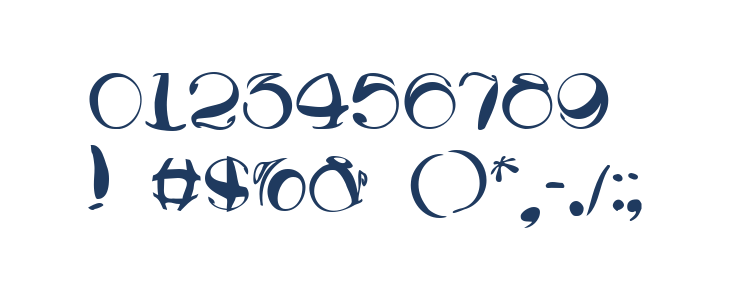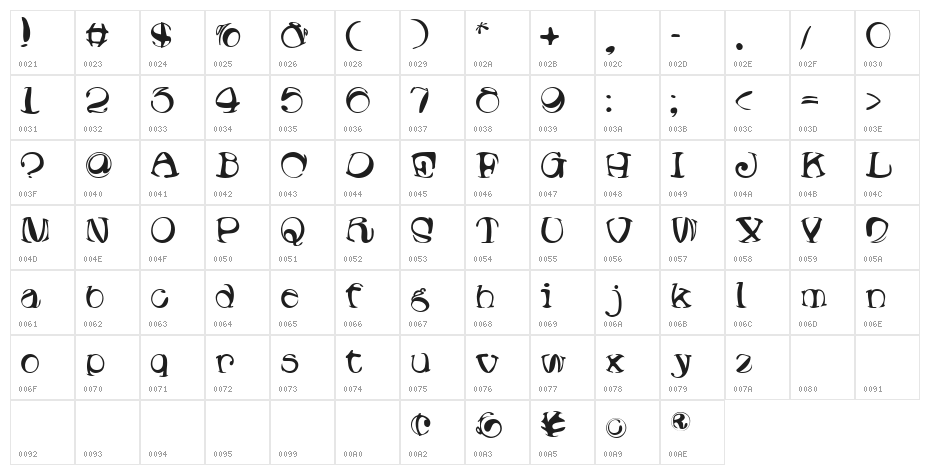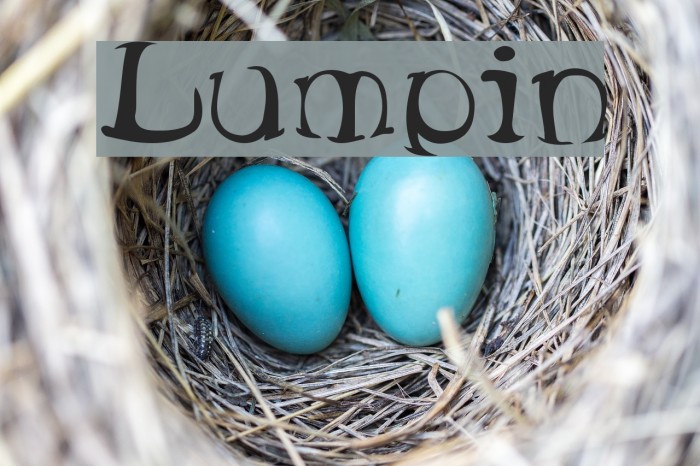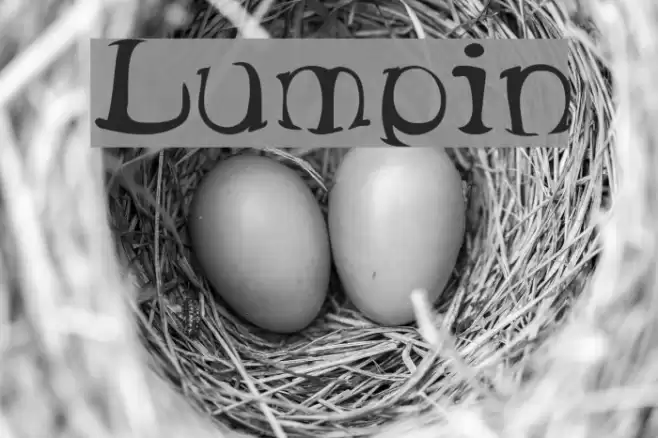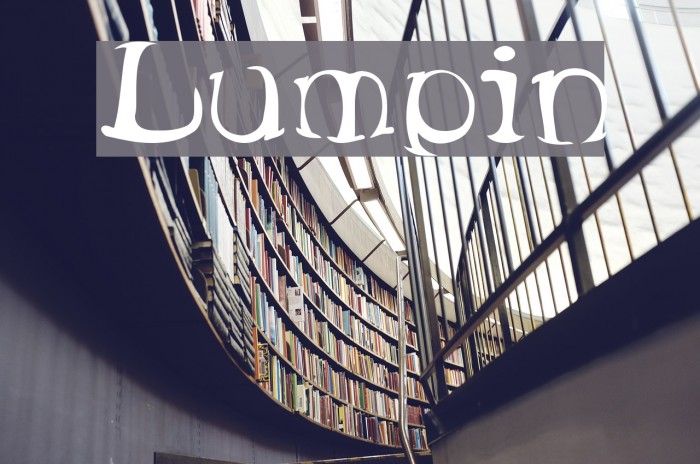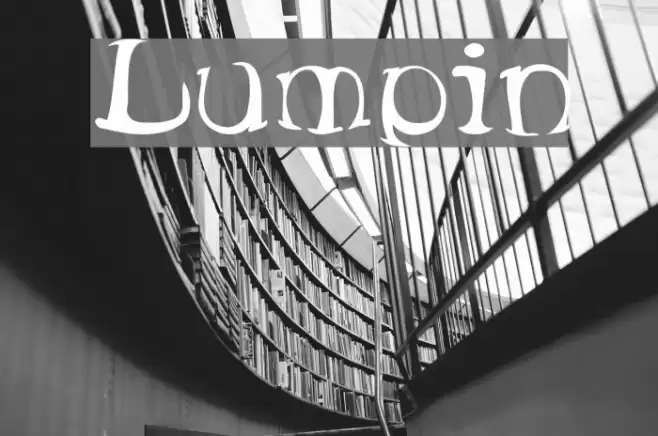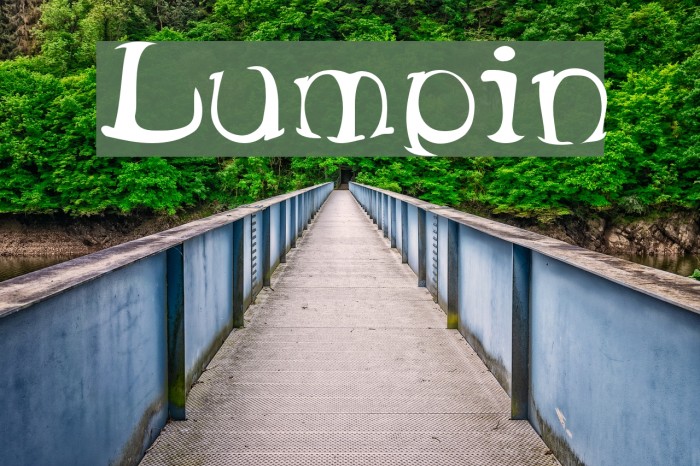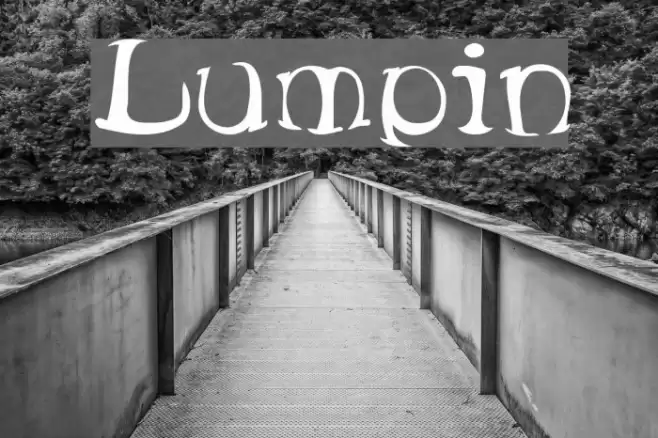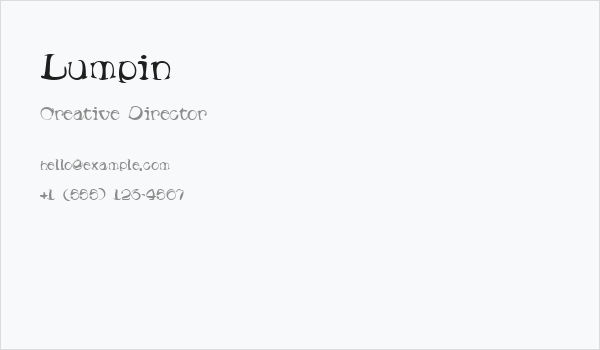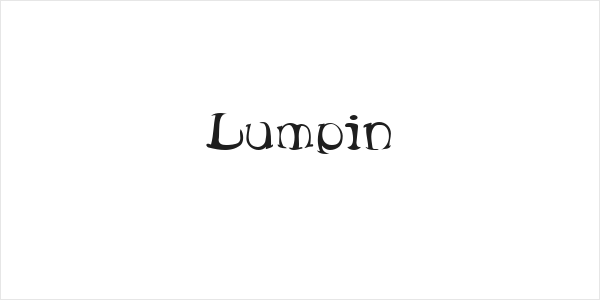
Lumpin Font
Lumpin Description
This font features a playful and whimsical design with exaggerated curves and unique character shapes. The letters have a distinct, artistic flair, making them stand out with their bold and decorative style. The uppercase and lowercase letters maintain a consistent theme, with each character exhibiting a sense of movement and fluidity. Numbers and special characters follow the same design principles, ensuring a cohesive look across all elements. The font's overall appearance is both eye-catching and memorable, suitable for creative and unconventional projects.